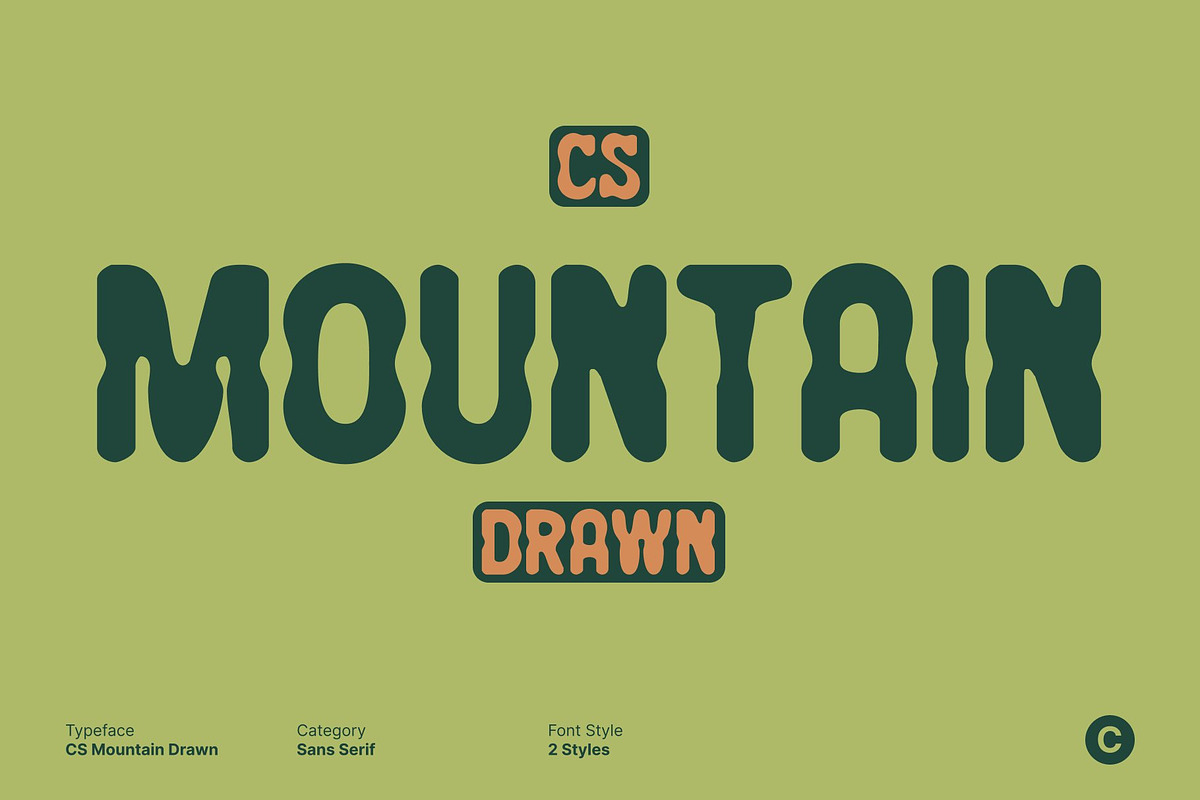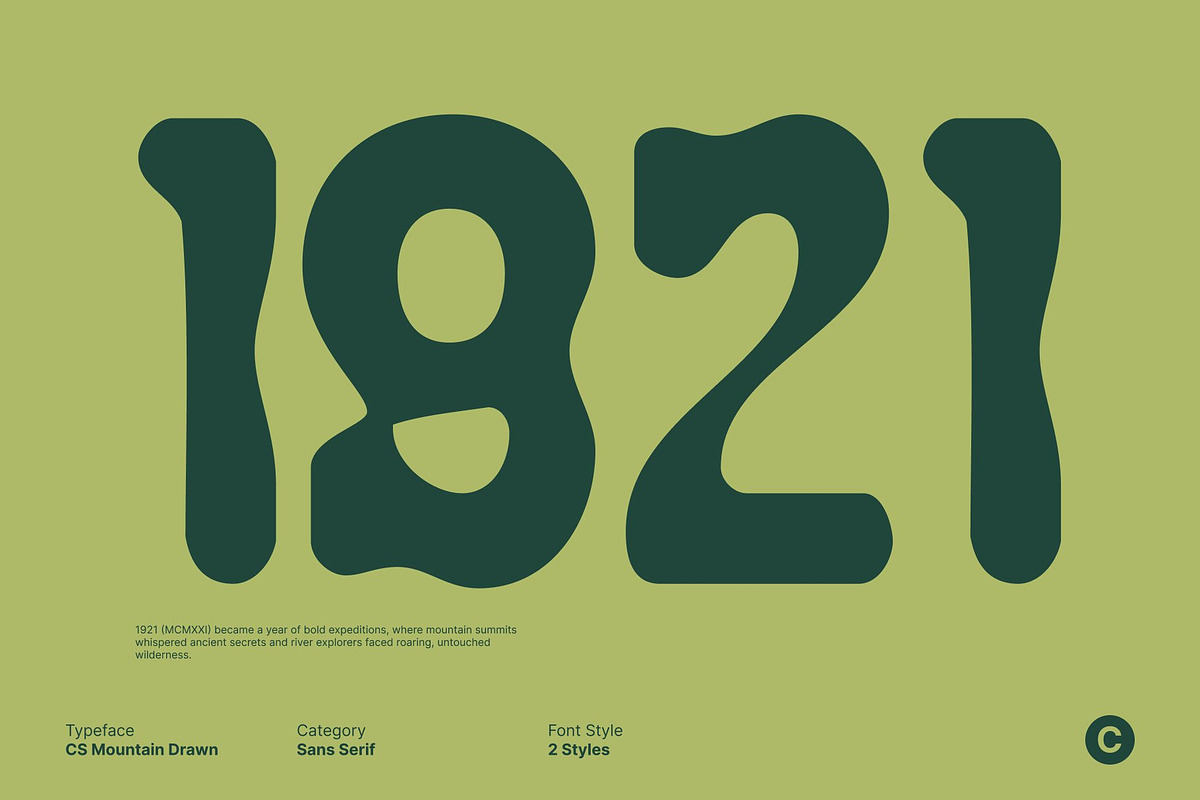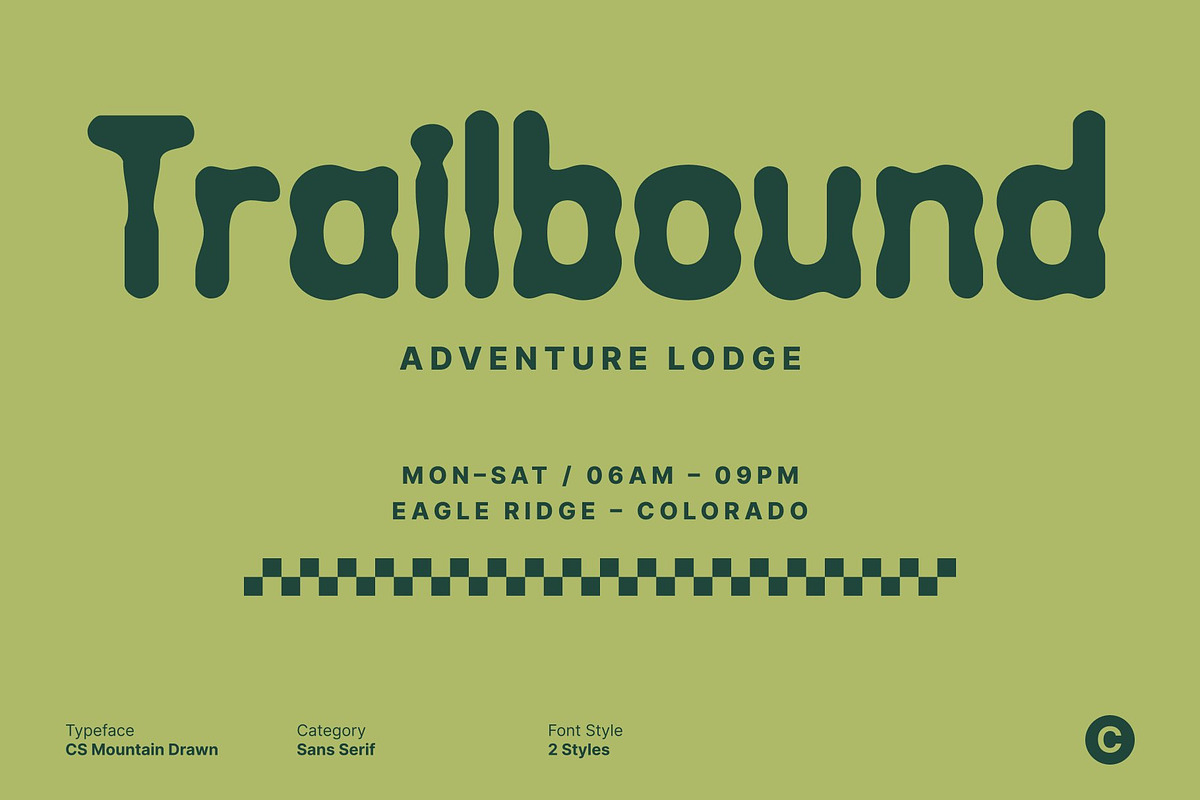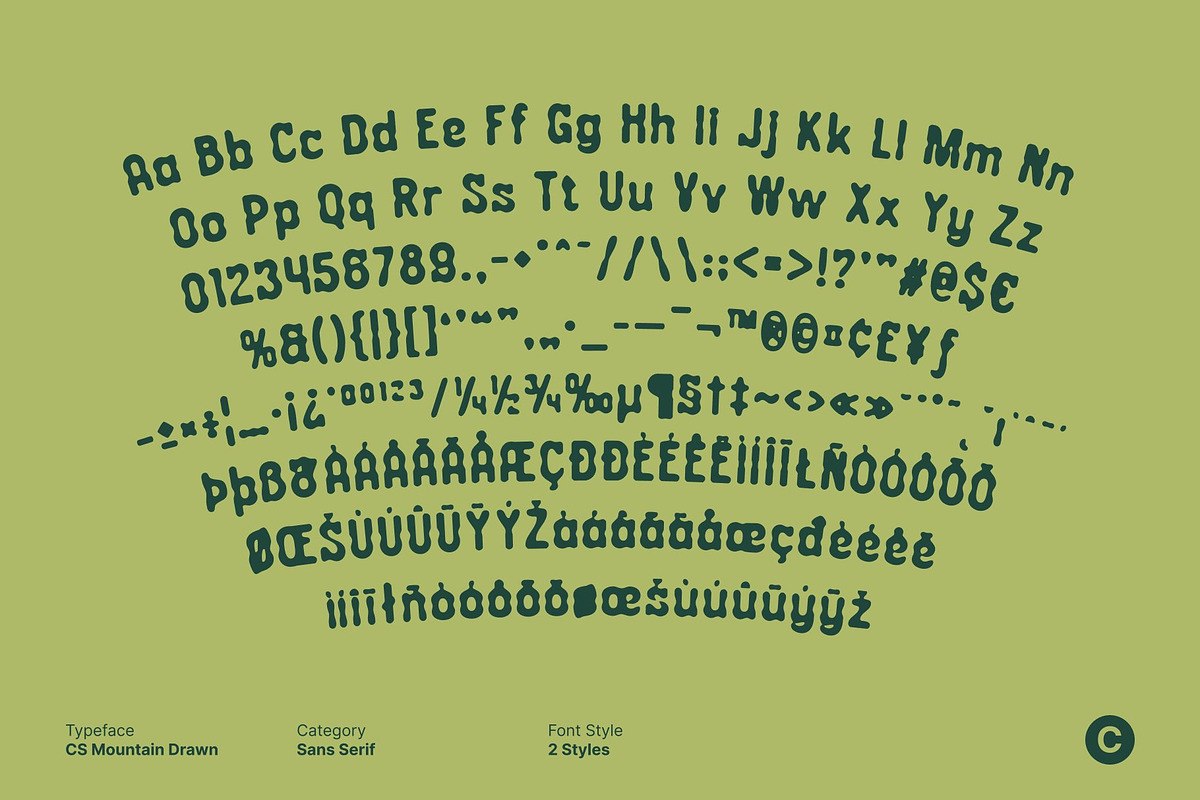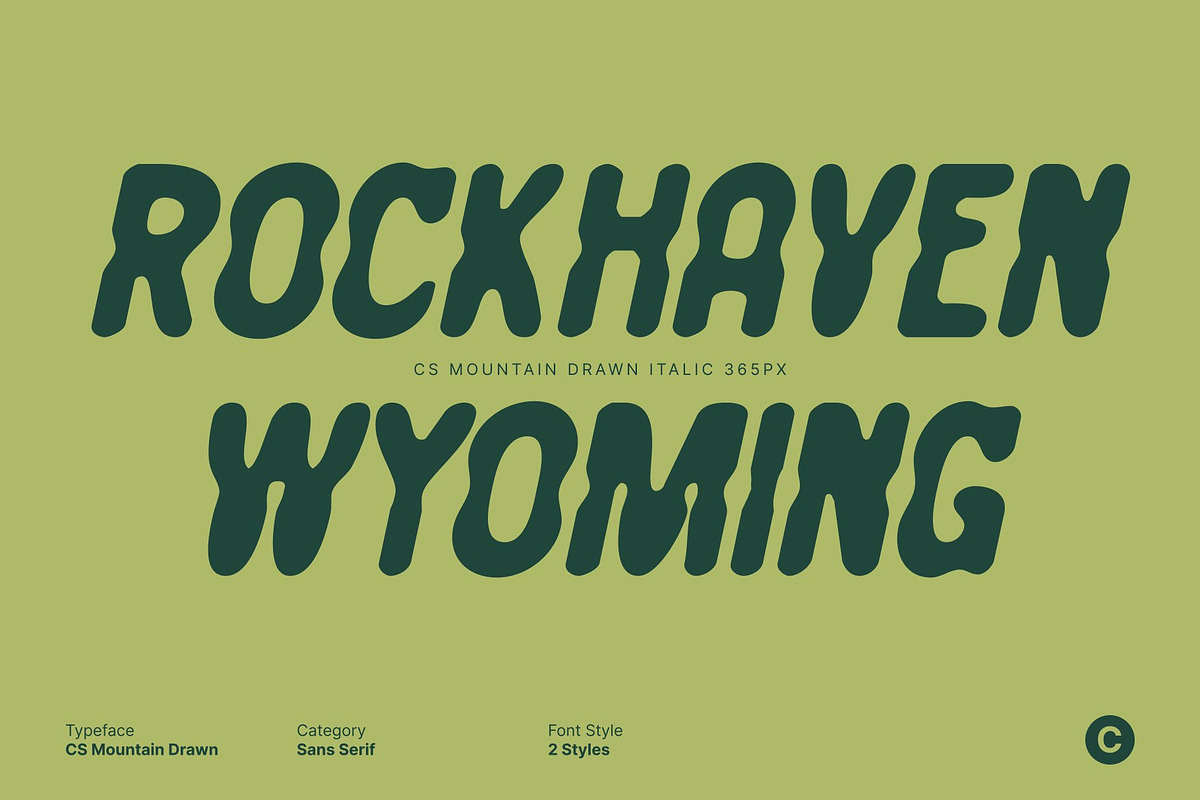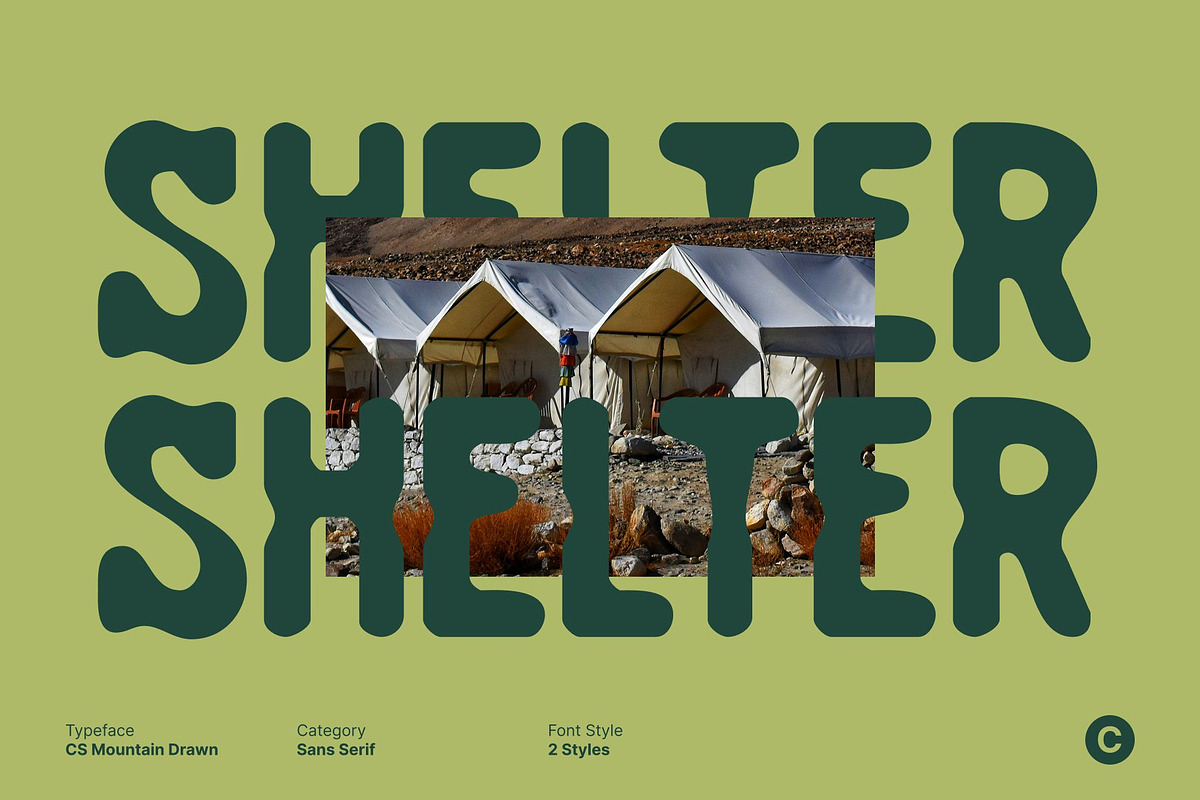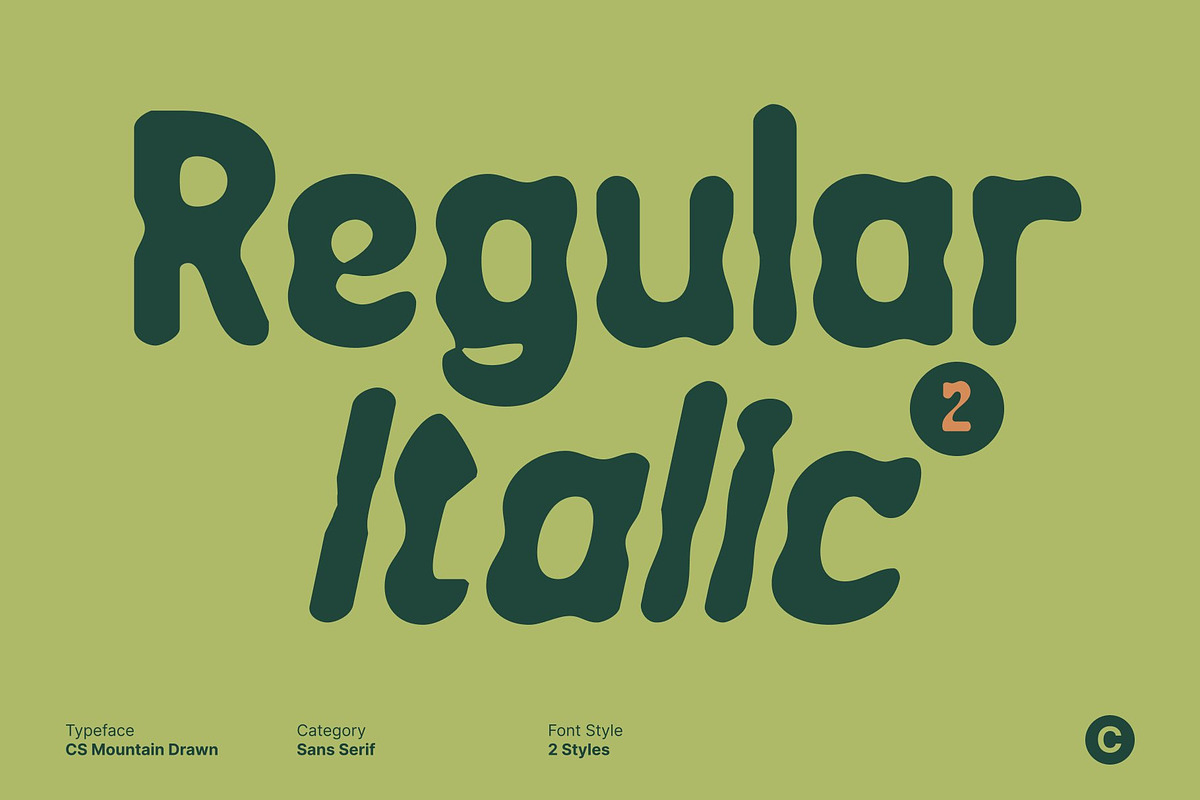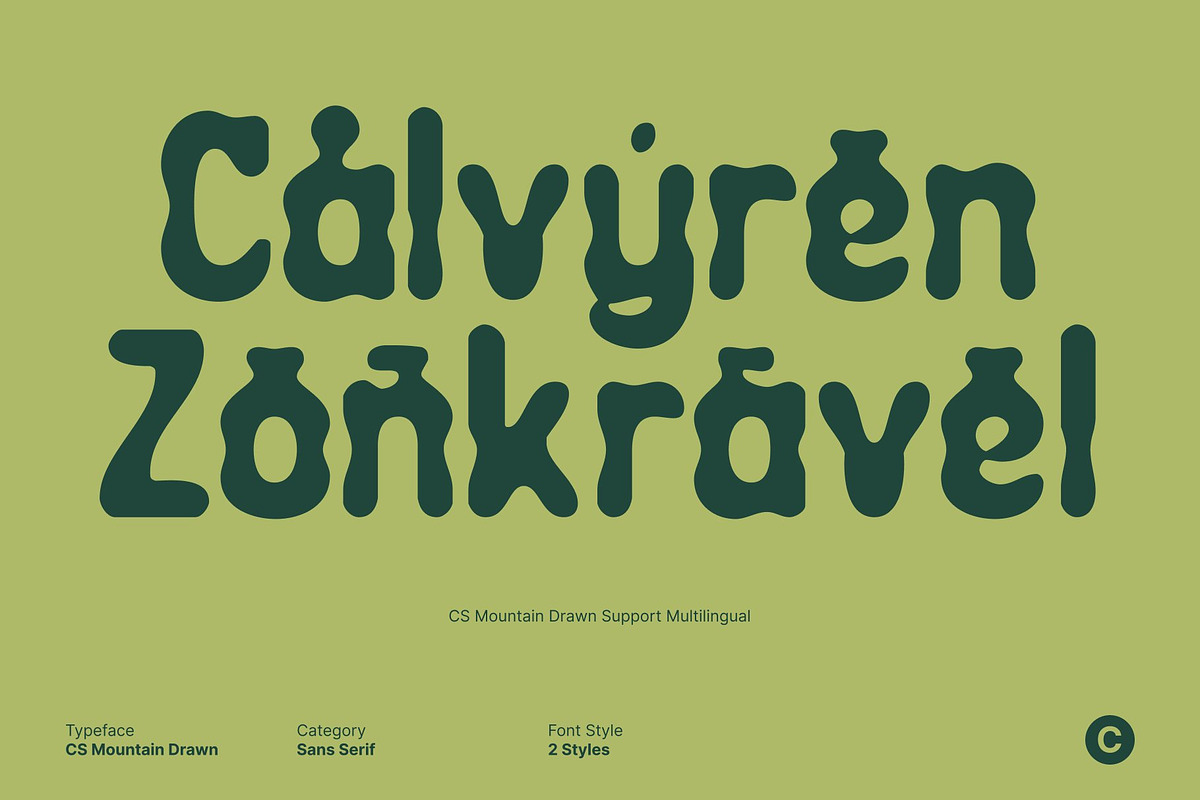
CS Mountain Drawn
CS Mountain Drawn – Decorative Sans Serif Font with Funky Hand-Drawn Energy
Playful, Funky Letterforms for Lively Designs This is a decorative sans serif font designed to bring energy and personality to any project. Its playful, unconventional forms create a fun and dynamic visual rhythm, perfect for designs that aim to stand out. Each character carries a quirky charm that immediately captures attention.
Hand-Drawn Texture for Expressive Impact The handmade drawn effect adds depth, movement, and artistic flair to this font. Subtle irregularities in each stroke give the font a lively, handcrafted feel, enhancing its expressive and energetic personality. This texture ensures that every letter feels unique and visually engaging.
Ideal for Headlines, Posters, and Creative Branding Whether used for bold headlines, eye-catching posters, or dynamic branding, this font delivers a distinctive presence. Its playful and lively forms make it perfect for projects targeting modern, youthful, or artistic audiences, giving designs a memorable and unconventional character.
A Unique Typeface Combining Fun and Artistic Expression This font balances decorative charm with handcrafted artistry, resulting in a font that is both visually striking and full of personality. Its funky, playful forms and drawn texture make it an excellent choice for designers seeking to infuse creativity, energy, and originality into their work.
- CS Mountain Drawn Regular
- CS Mountain Drawn Italic